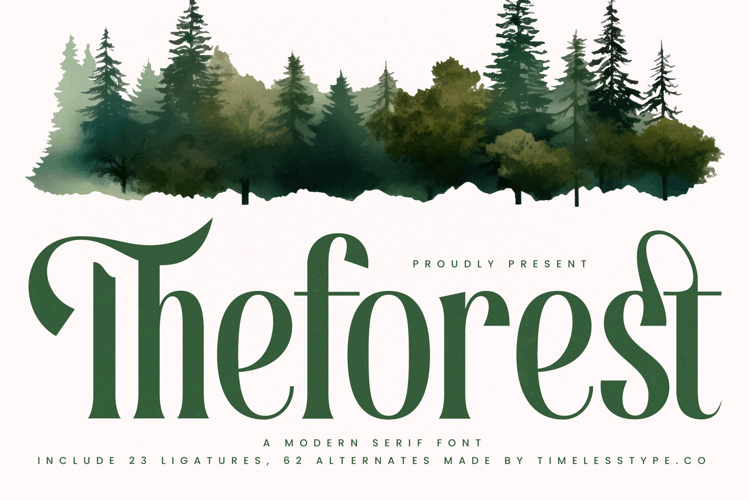
Theforest - Modern Serif Font
Theforest Typeface is a modern serif font that draws inspiration from nature, combining organic elegance with strong typographic presence. Featuring 23 ligatures and 62 stylistic alternates, this font gives designers the flexibility to create expressive and refined compositions. Its tall, sharp serifs balanced with smooth curves evoke a sense of harmony and sophistication, making it perfect for projects that connect themes of nature, sustainability, and luxury. Theforest brings both contemporary style and timeless charm, making typography a visual centerpiece.